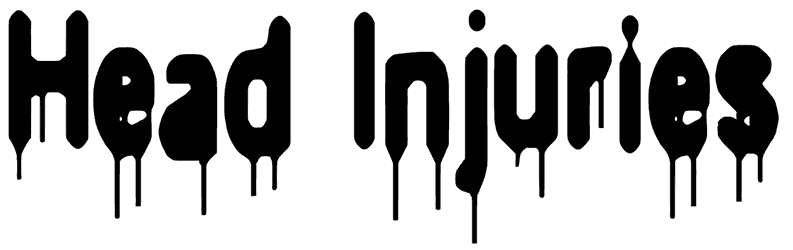
Head Injuries Font
It is the best time to revolutionize your creative ideas by adding a sense of fear, uniqueness, smudgy, or momentum to them, and in this regard, a magical horror font such as Head Injuries would be really helpful. This melting font can look insanely perfect on a vast range of visual content, including stickers, graffiti, movie posters, or action video game brochures.